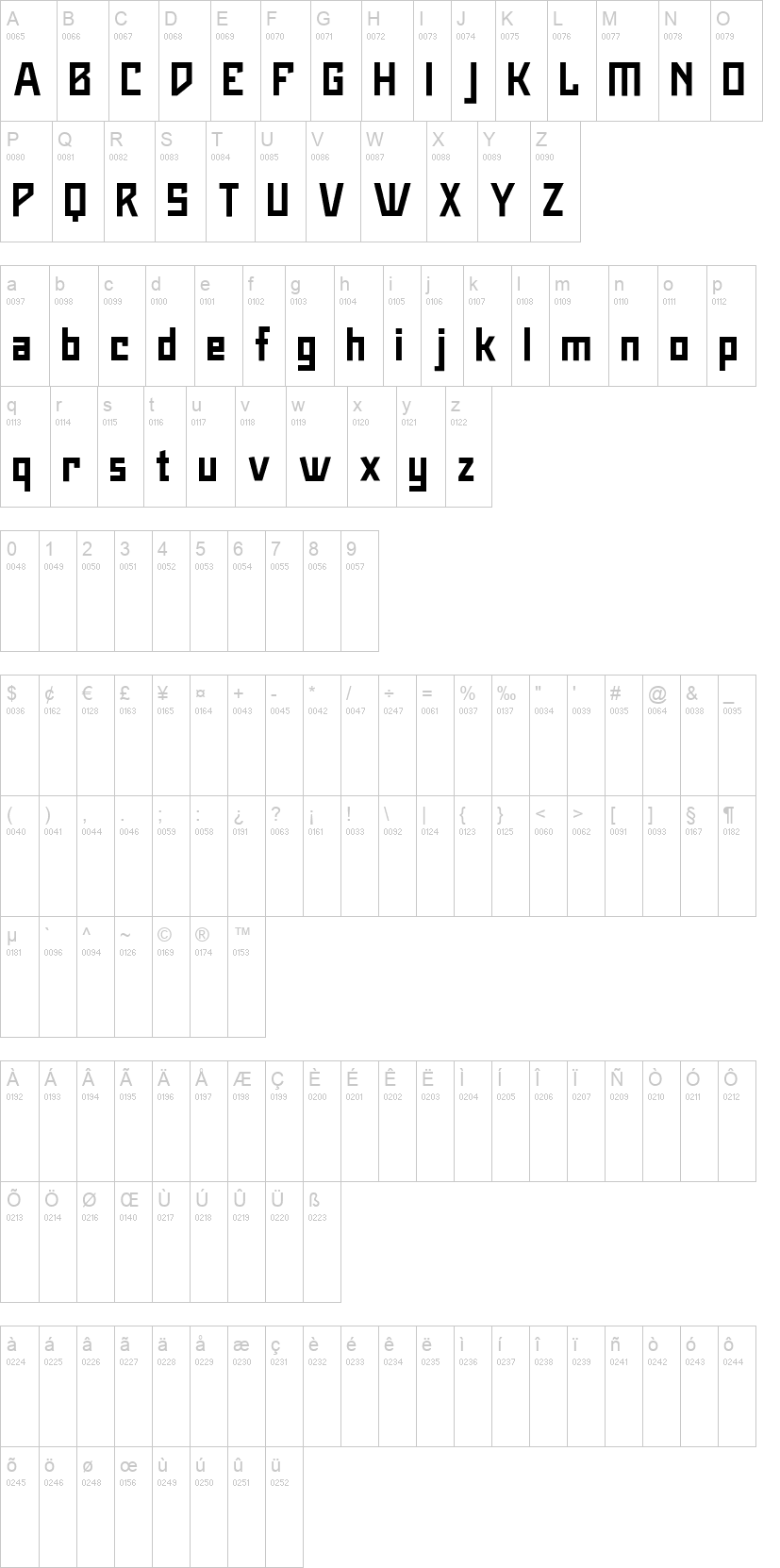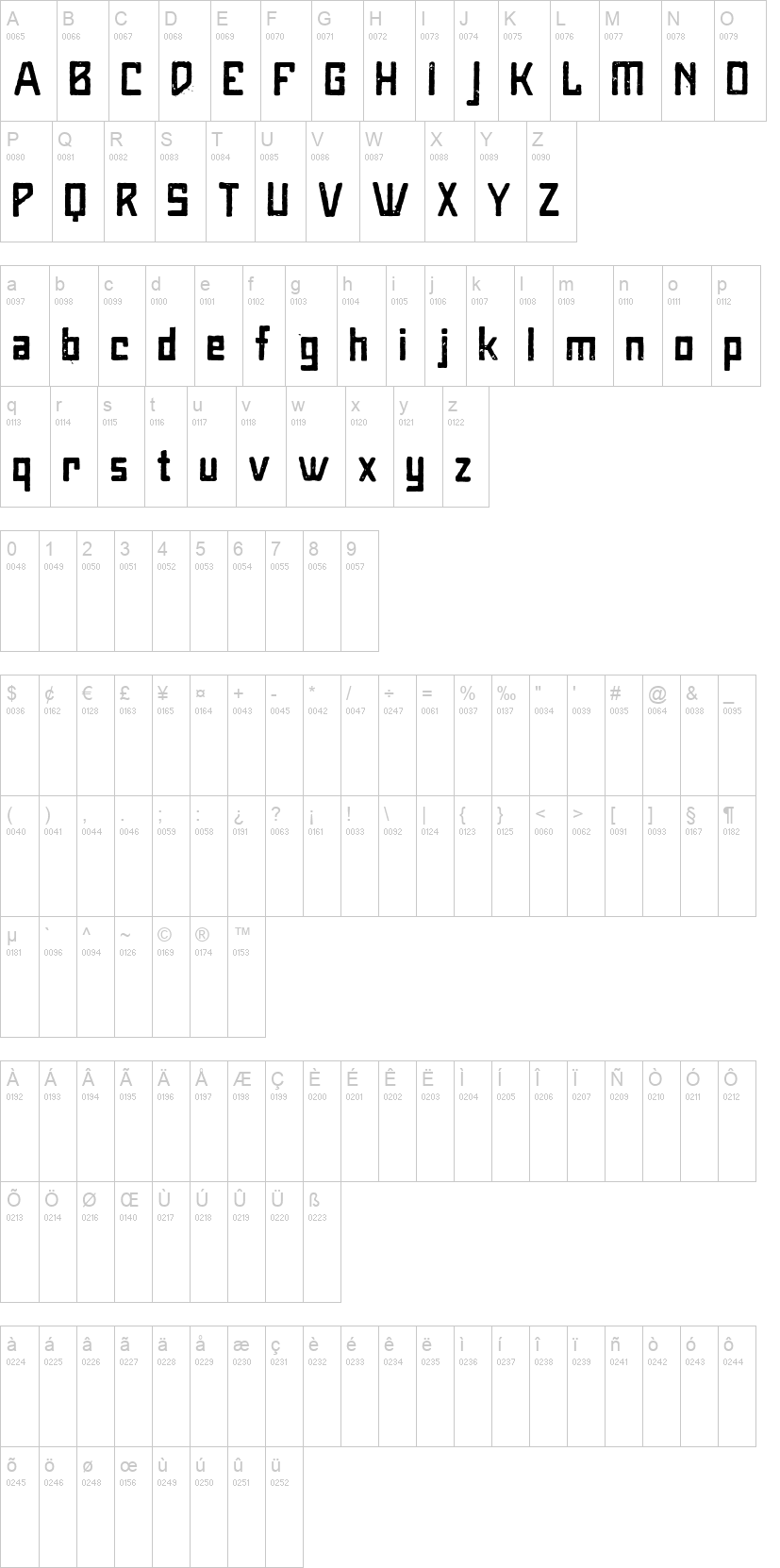
This script is found in a magazine from the Otto Maier publishing house, Ravensburg, which was issued sometime in the years shortly before WWI. The magazine is entitled Schriften-Sammlung für Techniker: Verkleinerte Schriften der wichtigsten Alphabete (Collection of scripts for technical specialists: reduced scripts of the most significant alphabets) and published by Karl O. Maier. The original copy, produced by means of a galvanized plate, is just 7 centimeters wide. It served as the model for technical professions in which, at that time, the captions of drawings were still done by hand.
The characters have been scanned, digitized and greatly magnified. Special attention was given to ensure the uneven edges, typical of handwritten script, remained effectively noticeable even in the digitized form. As a result, this technical font retains a handmade touch.